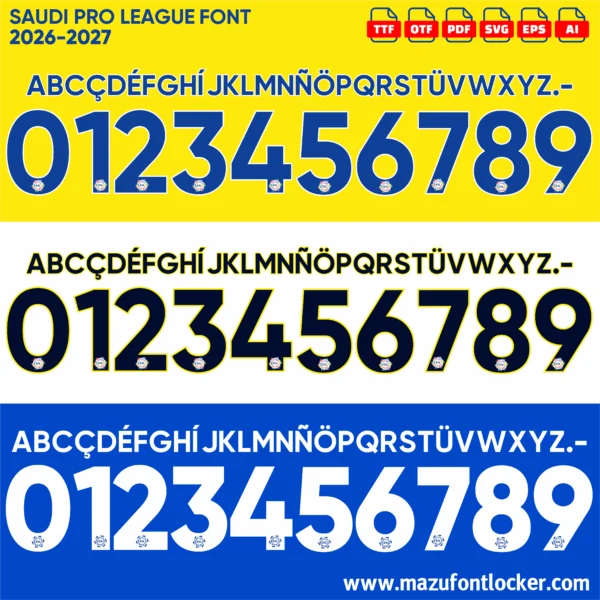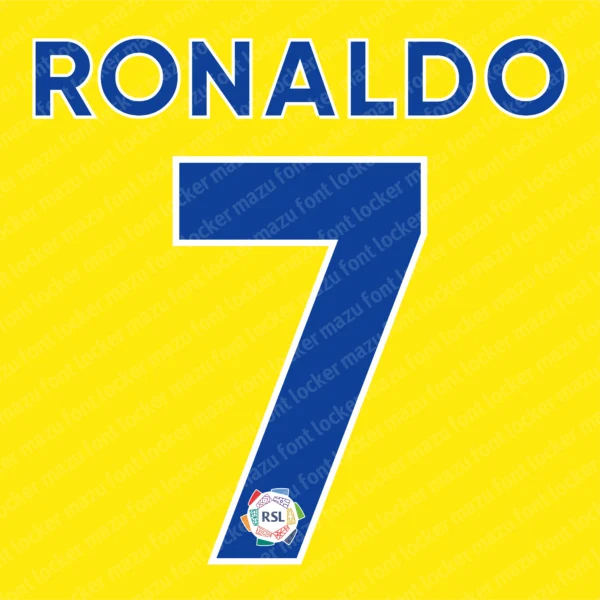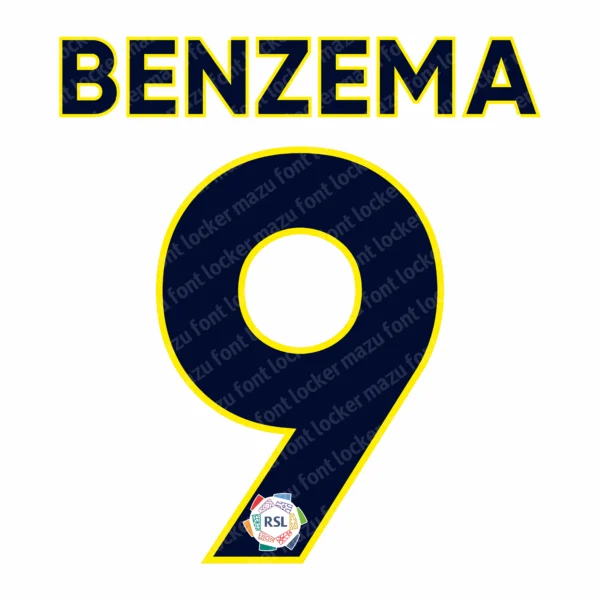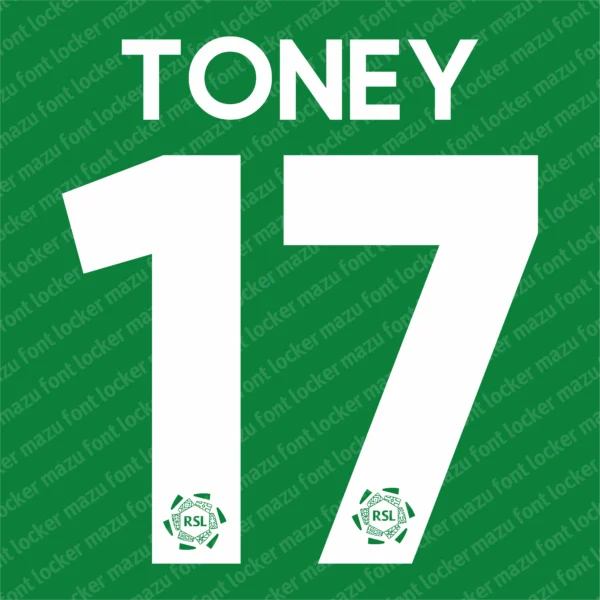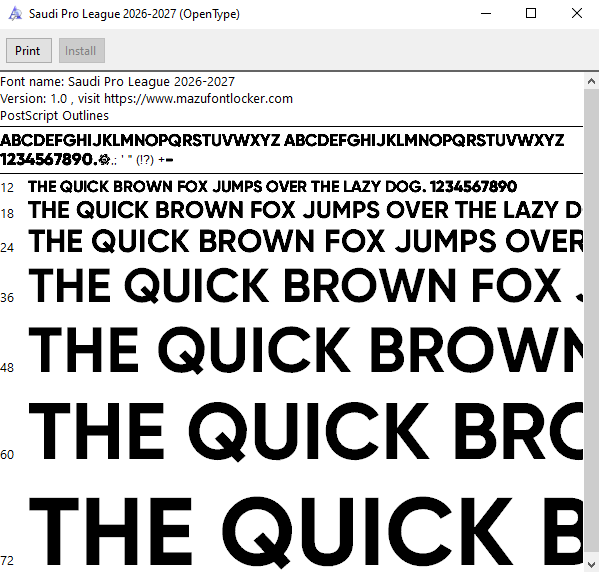
Saudi Pro League 2026-2027 Font Vector – Stunning Roshn Masterpiece
This font captures the powerful, precision-crafted lettering inspired by Saudi Arabia’s elite football stage, electrifying stadium atmosphere, ambitious modern identity, and star-studded football culture — delivering premium authenticity, commanding visual impact, and explosive match-day energy for professional jersey mockups, football graphics, sports branding, fan designs, and high-end creative projects.
Saudi Pro League 2026-2027 Font Vector – Stunning Bold & Modern Typeface
The Saudi Pro League 2026-2027 Font Vector is a premium typeface that accurately recreates the distinctive match lettering associated with the Saudi Pro League during the 2026-2027 football season. This high-quality vector font kit captures the bold, clean, and instantly recognizable typography that perfectly complements the league’s dynamic and ambitious identity.
Designed for professional designers, football enthusiasts, jersey collectors, and passionate Saudi football supporters, the Saudi Pro League 2026-2027 Font Vector delivers exceptional authenticity for creating realistic jersey mockups, football merchandise, social media graphics, match posters, squad designs, and custom fan artwork. Every character has been carefully recreated to reflect the powerful and precise visual style of one of Asia’s most rapidly growing football competitions.
This font stands out thanks to its precise vector construction and authentic league-inspired styling. Every letter and numeral has been meticulously recreated to match the distinctive football lettering aesthetic associated with the Saudi Pro League during the 2026-2027 season and its domestic campaign.
Whether you’re producing professional football kit templates, custom jersey concepts, or eye-catching football content, the Saudi Pro League 2026-2027 Font Vector delivers a genuine match-ready appearance inspired by the identity of the Roshn Saudi League.
The lettering featured in the Saudi Pro League 2026-2027 Font Vector combines clean geometric lines with bold modern proportions. The result is a premium and highly readable typeface that reflects the Saudi Pro League’s ambitious football vision, iconic green and white colors, national identity, and passionate growing fanbase.
- Complete uppercase A–Z alphabet and numbers 0–9 in authentic Saudi Pro League 2026-2027 inspired style
The Saudi Pro League 2026-2027 Font Vector is an independently designed typeface package inspired by the official shirt lettering and visual identity associated with the Saudi Pro League during the 2026-2027 football season. It has been carefully recreated for football enthusiasts, graphic designers, collectors, jersey creators, and fans producing custom football concepts, digital artwork, and fan-made projects. Please note that this is a fan-made design resource and is not an official product of the Saudi Pro League, the Saudi Arabian Football Federation, the AFC, or any associated organization.